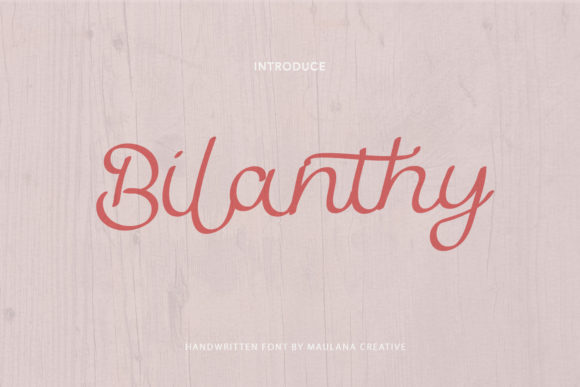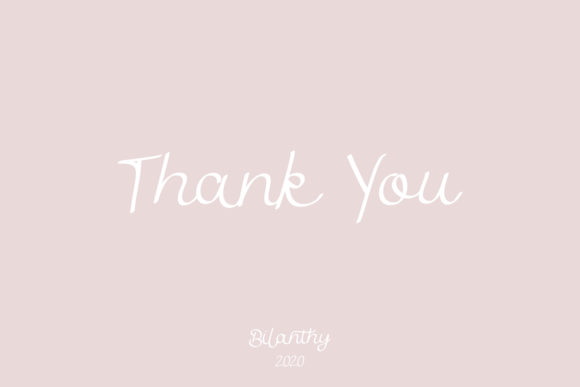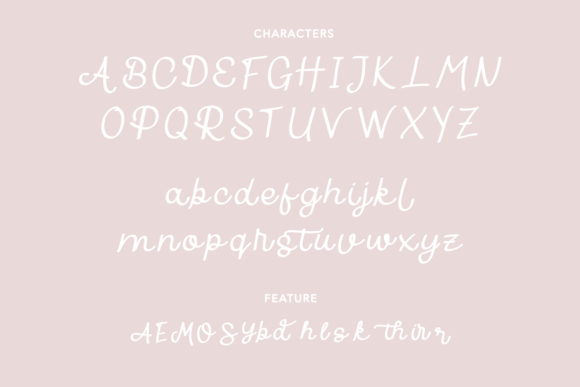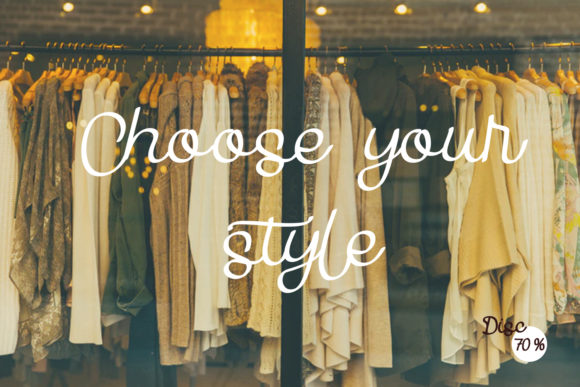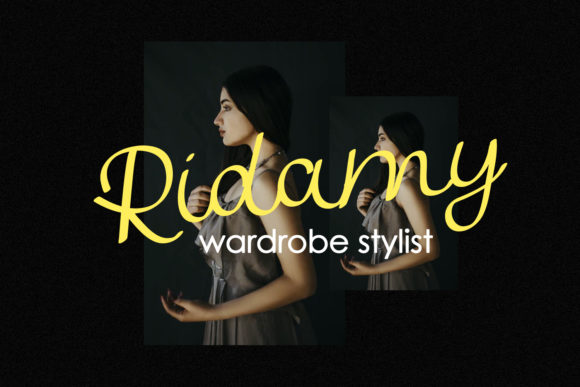
Bilanthy Font
About Bilanthy Font
Bilanthy is a delicate and cursive handwritten font. This gentle font will look gorgeous on a variety of design ideas. It will add a joyful and romantic touch to each of your projects!